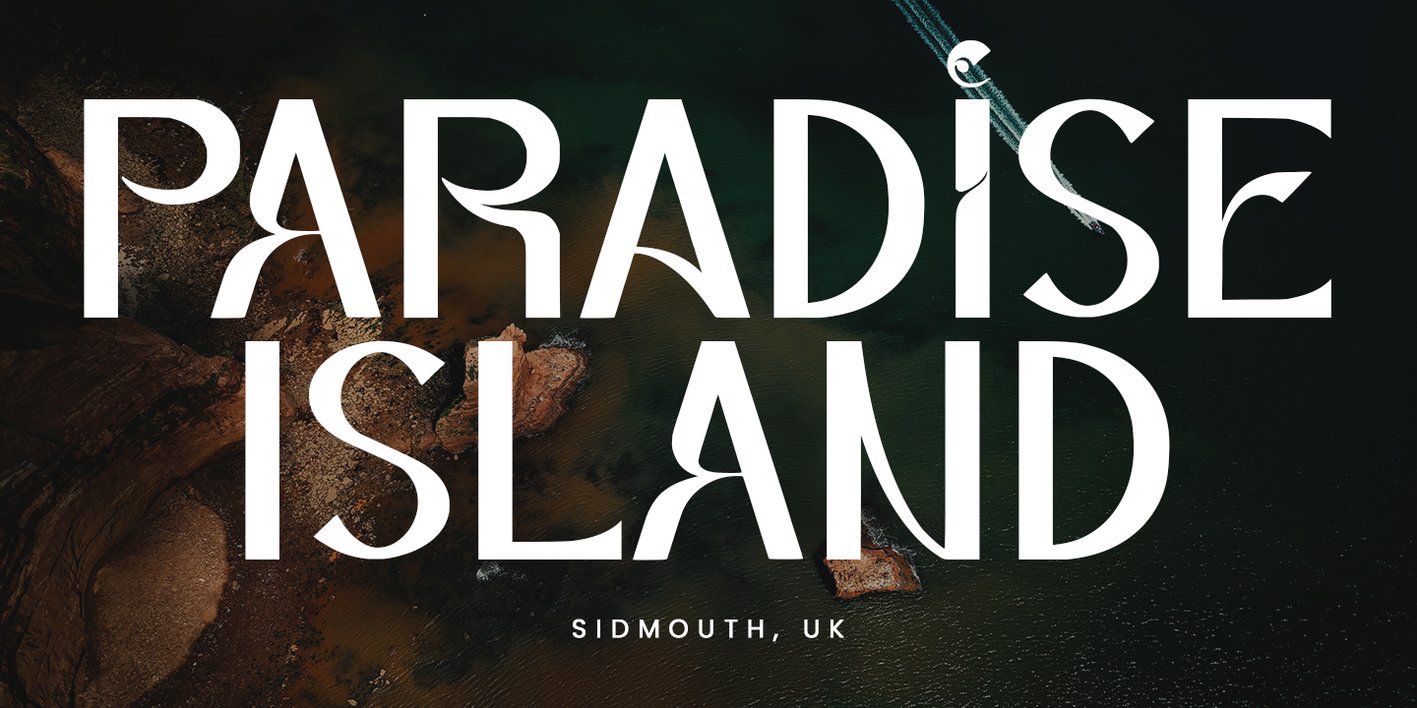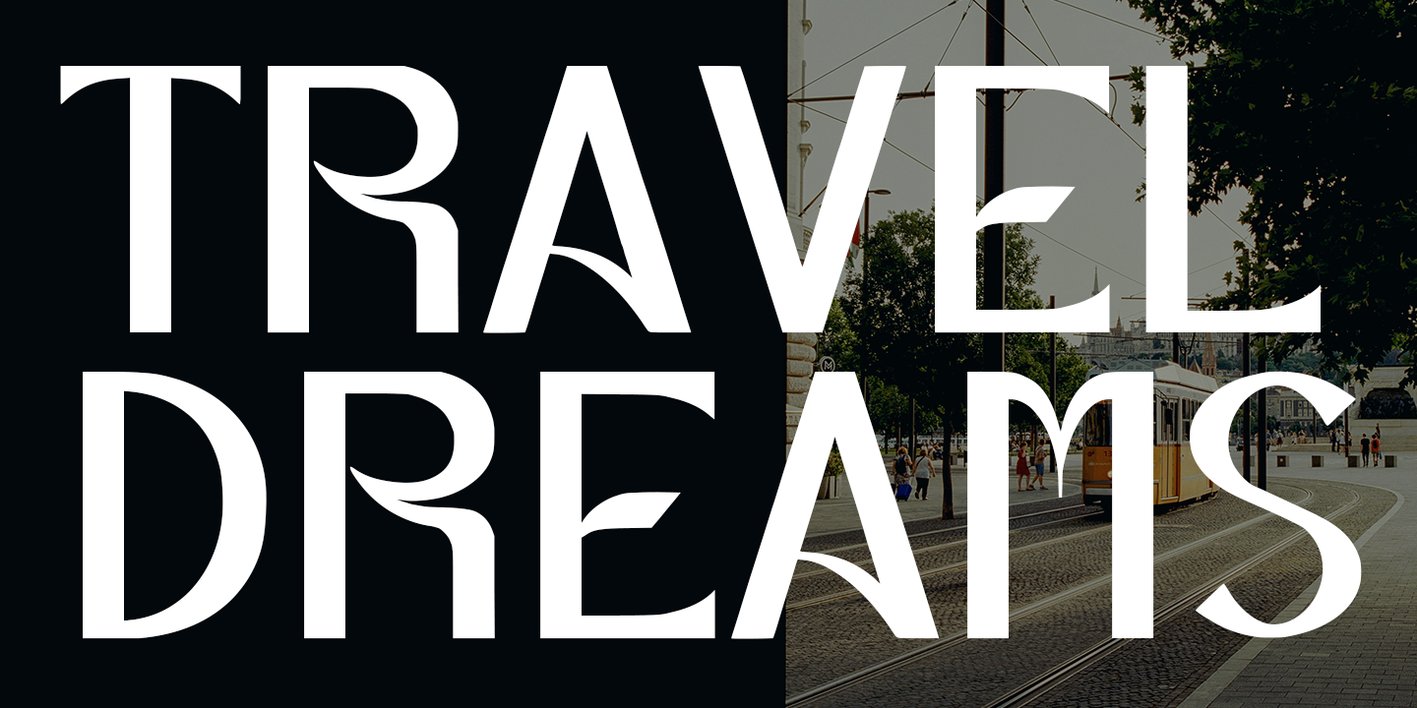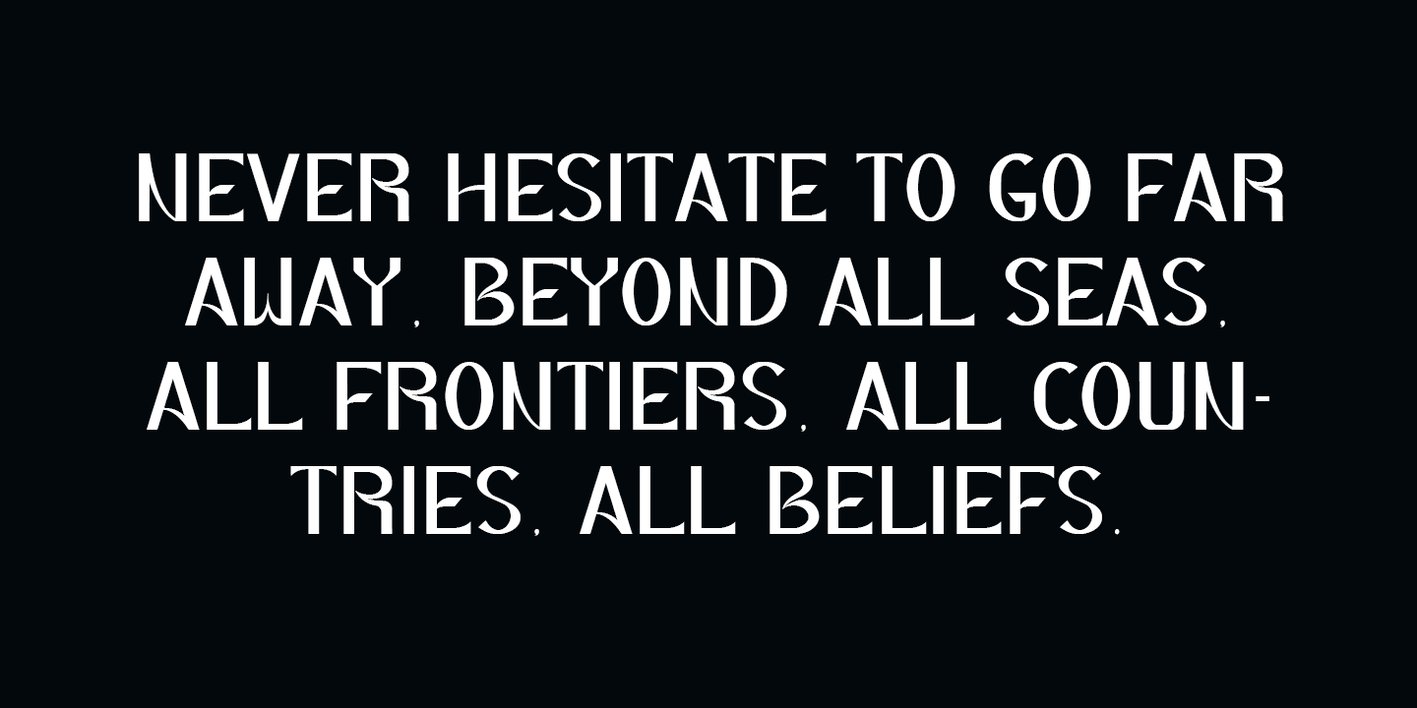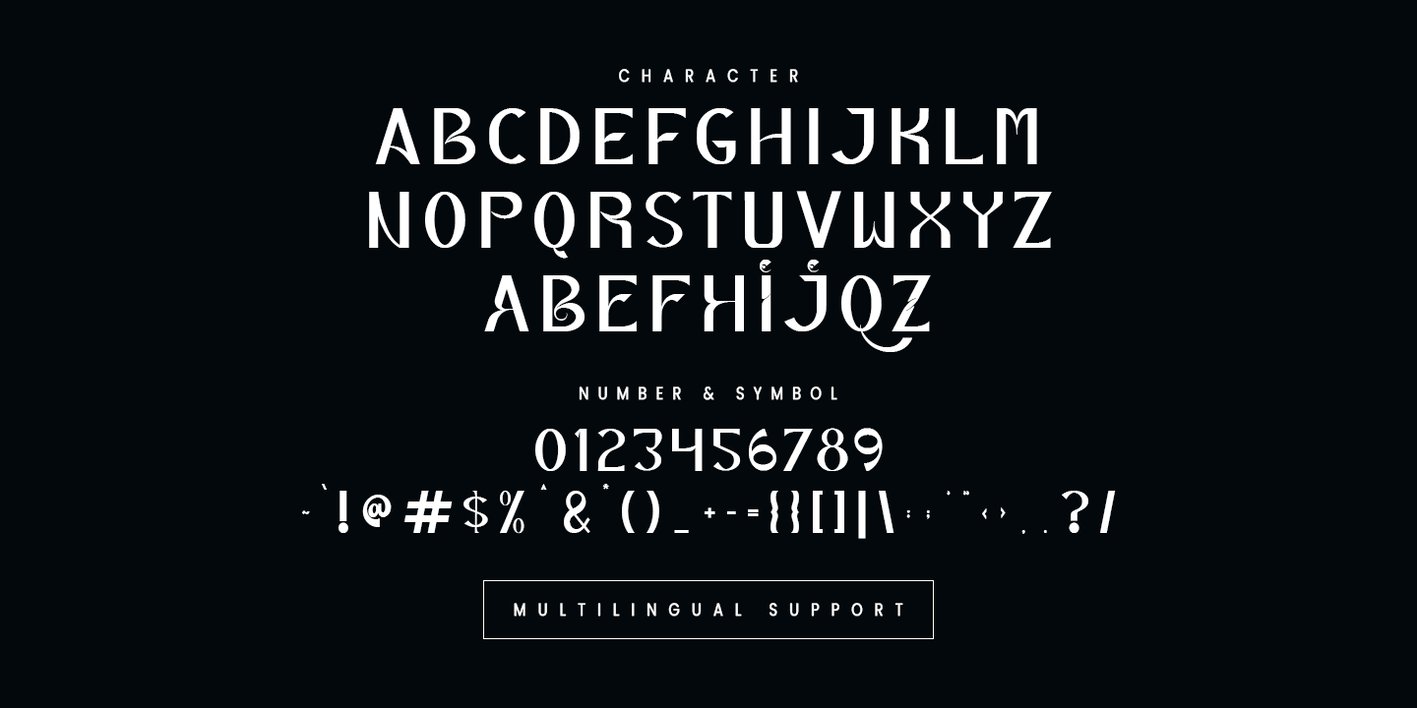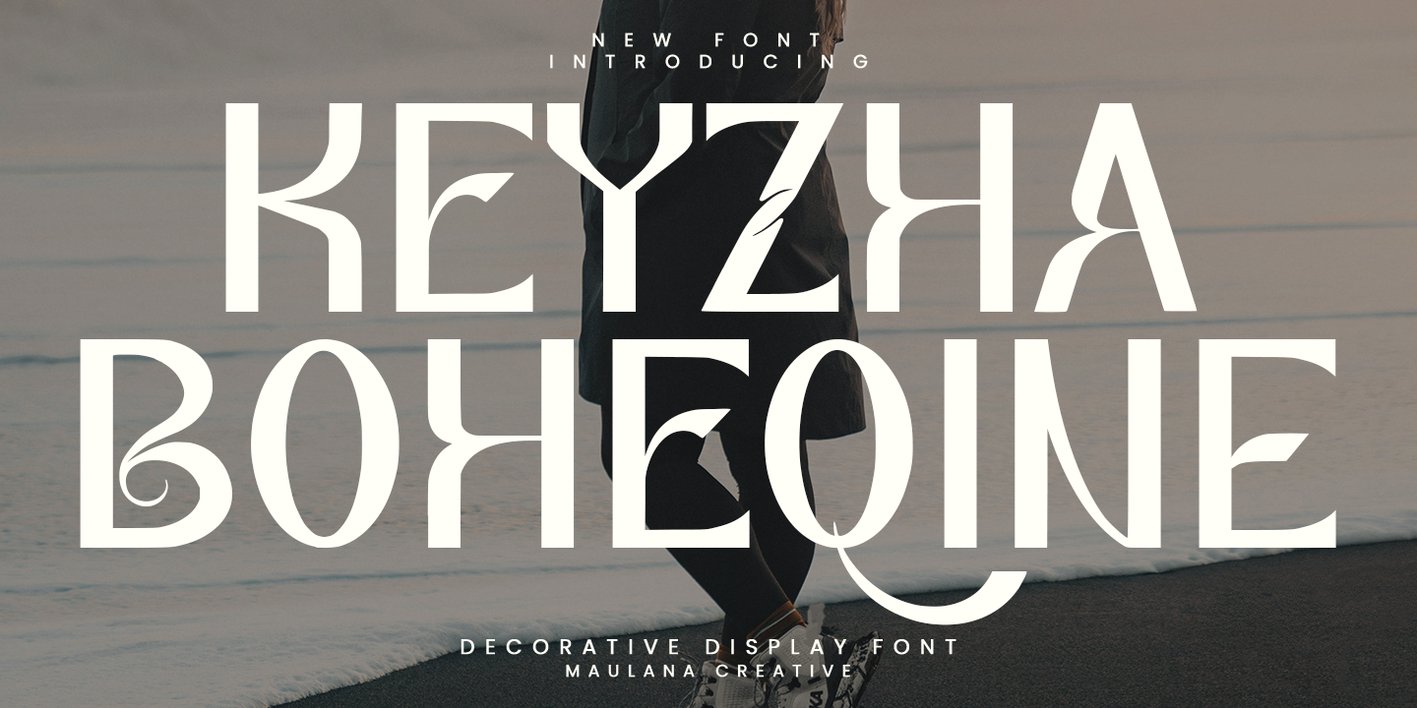
MC Keyzha Boheqine Font
Keyzha Boheqine is a decorative handmade display font. With medium low contrast stroke, vintage character with alternate to give you an extra creative work. Keyzha Boheqine font support multilingual language. This font is good for logo design, Social media, Movie Titles, Books Titles, a short text even a long text letter and good for your secondary text font with sans or serif. Make a stunning work with Keyzha Boheqine font.